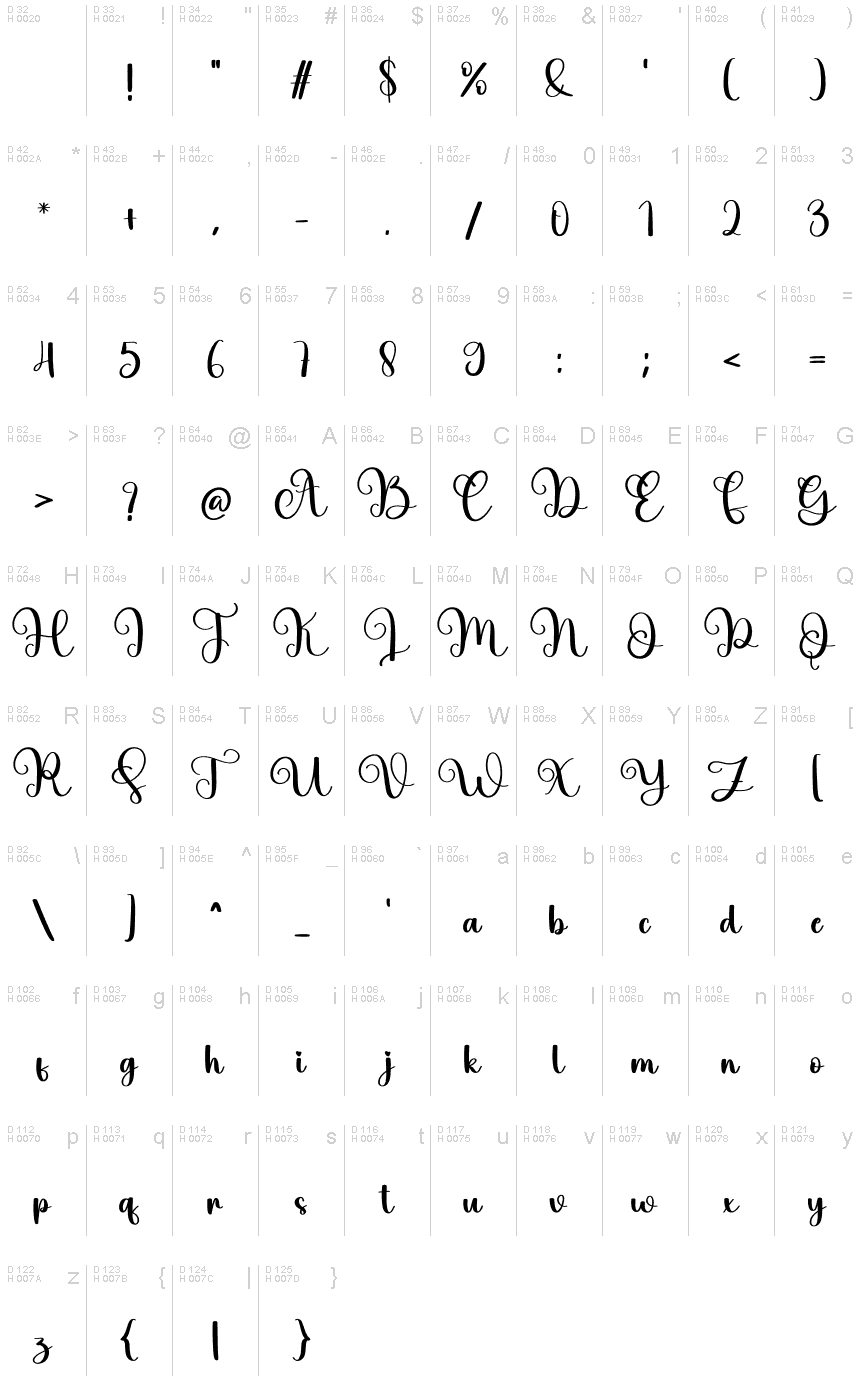
Billi
Billi, a mesmerizing creation by scratchones, is a breathtaking calligraphy font that exudes elegance and grace. With its semi-light weight, this font adds a delicate touch to any project, making it perfect for wedding invitations, high-end branding materials, and sophisticated advertisements. Whether you're designing a chic fashion magazine or crafting an exquisite logo for a luxury hotel, Billi's graceful curves and refined strokes will leave a lasting impression on your audience. Elevate your designs with the timeless beauty of Billi and let its calligraphic allure captivate your viewers.
the latest style letters are perfect for wall displays, wedding invitations, social media post logos, advertisements, product packaging, product designs, labels, photography, watermarks, invitations, stationery, and any project that requires taste handwriting.